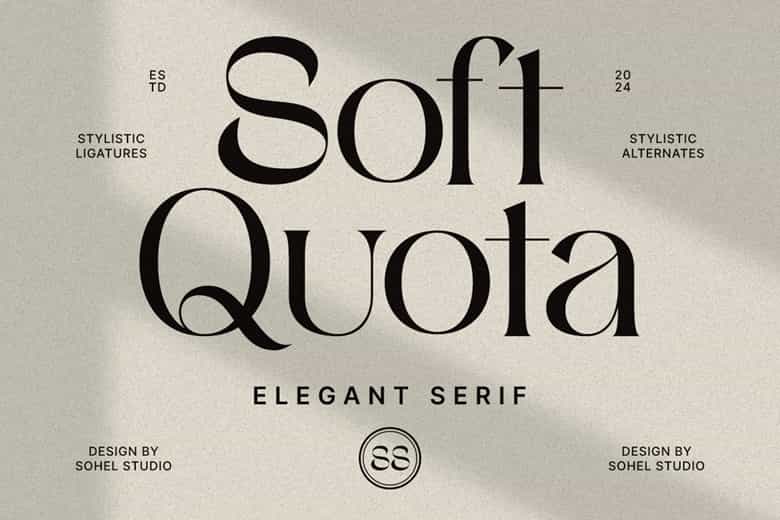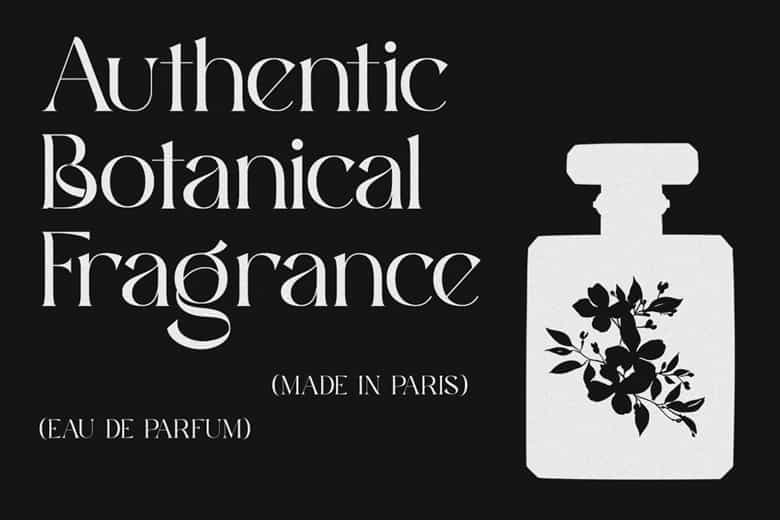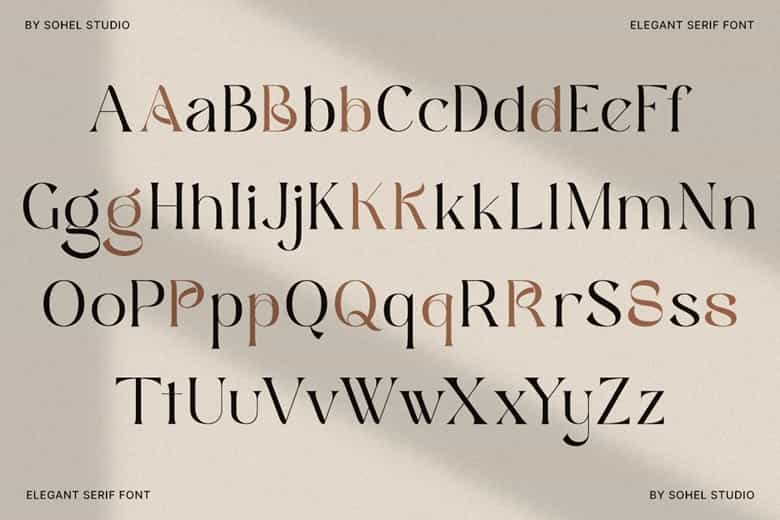
Soft Quota is a beautiful elegant serif font created by Sohel Studio that combines the presence of modernity with the presence of classics. It has a strong but soft look to the letters and comes with ligatures and alternates that can help to give each design a special touch.